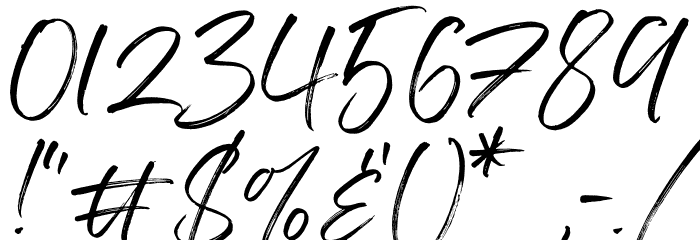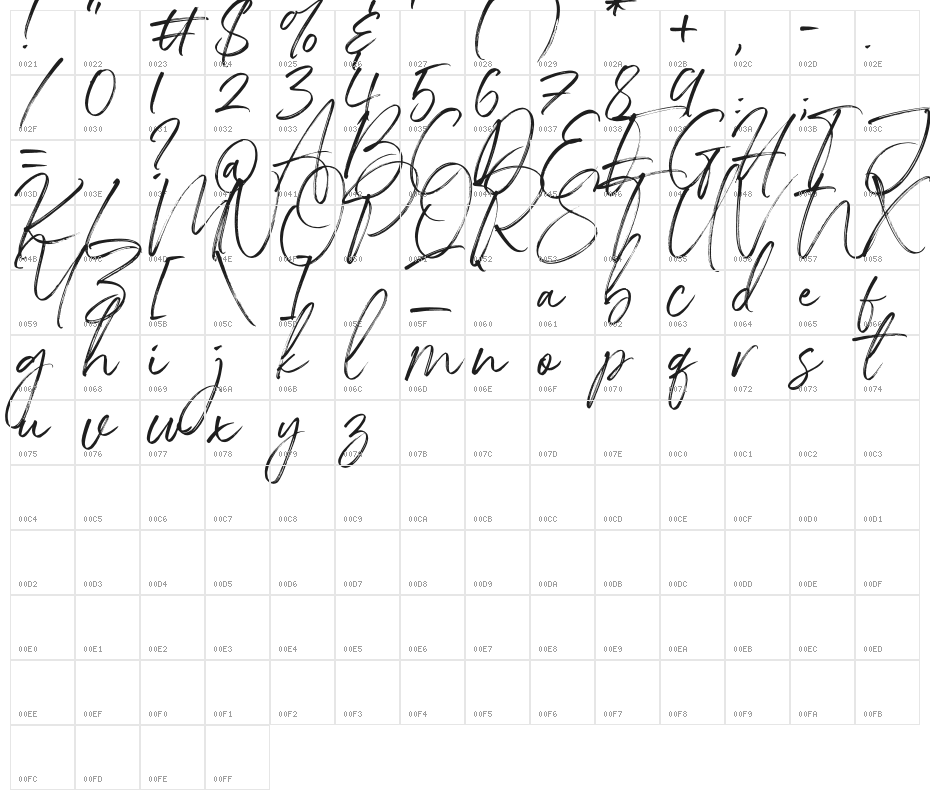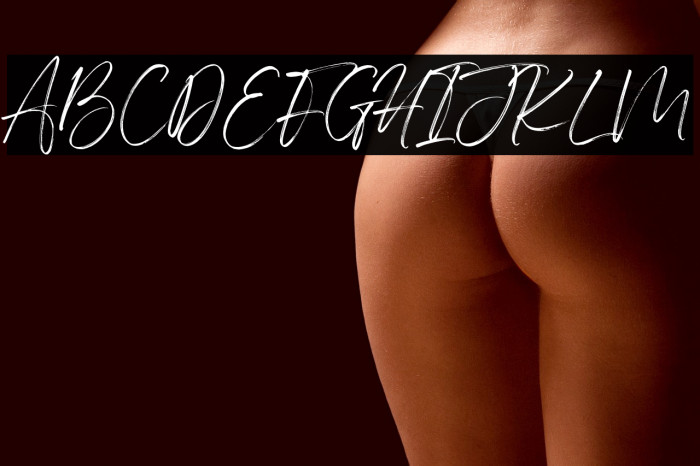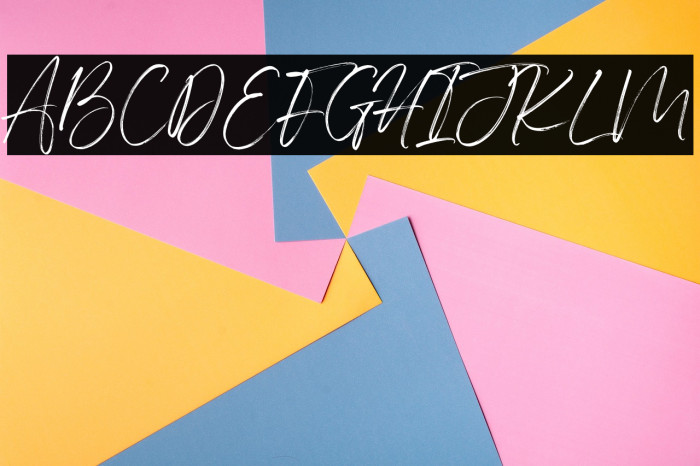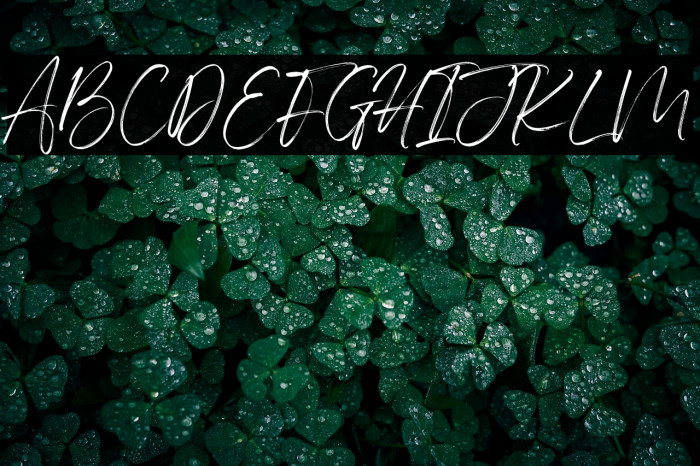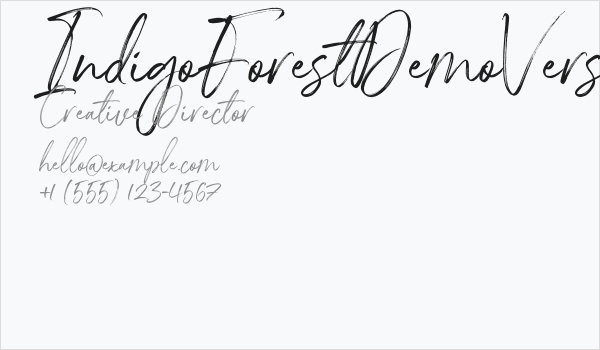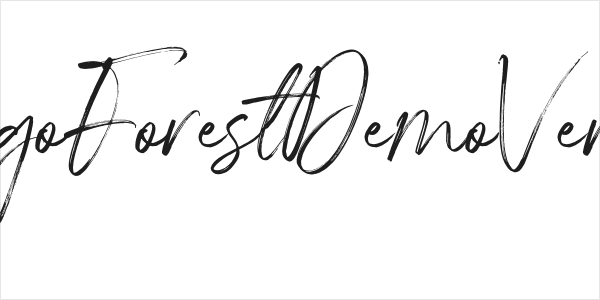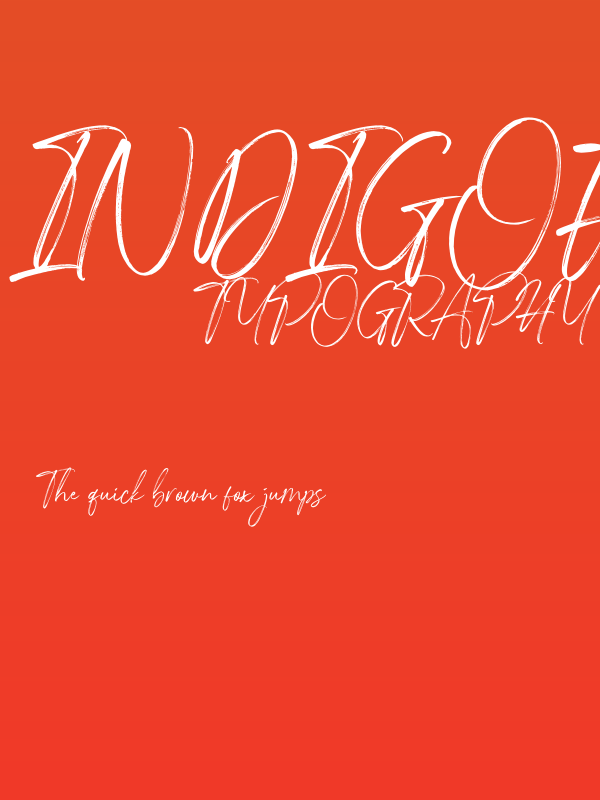
IndigoForestDemoVersion Font
IndigoForestDemoVersion Description
This font exudes a dynamic and expressive handwritten style, characterized by its fluid and cursive strokes. The letters are elegantly connected, creating a sense of movement and rhythm. The uppercase letters maintain a consistent height, while the lowercase letters exhibit a playful variation in size and slant. The numbers are bold and slightly tilted, adding to the overall energetic feel. Special characters are creatively integrated, maintaining the font's artistic flair. This font is perfect for projects that require a personal touch, such as invitations, greeting cards, or artistic branding.